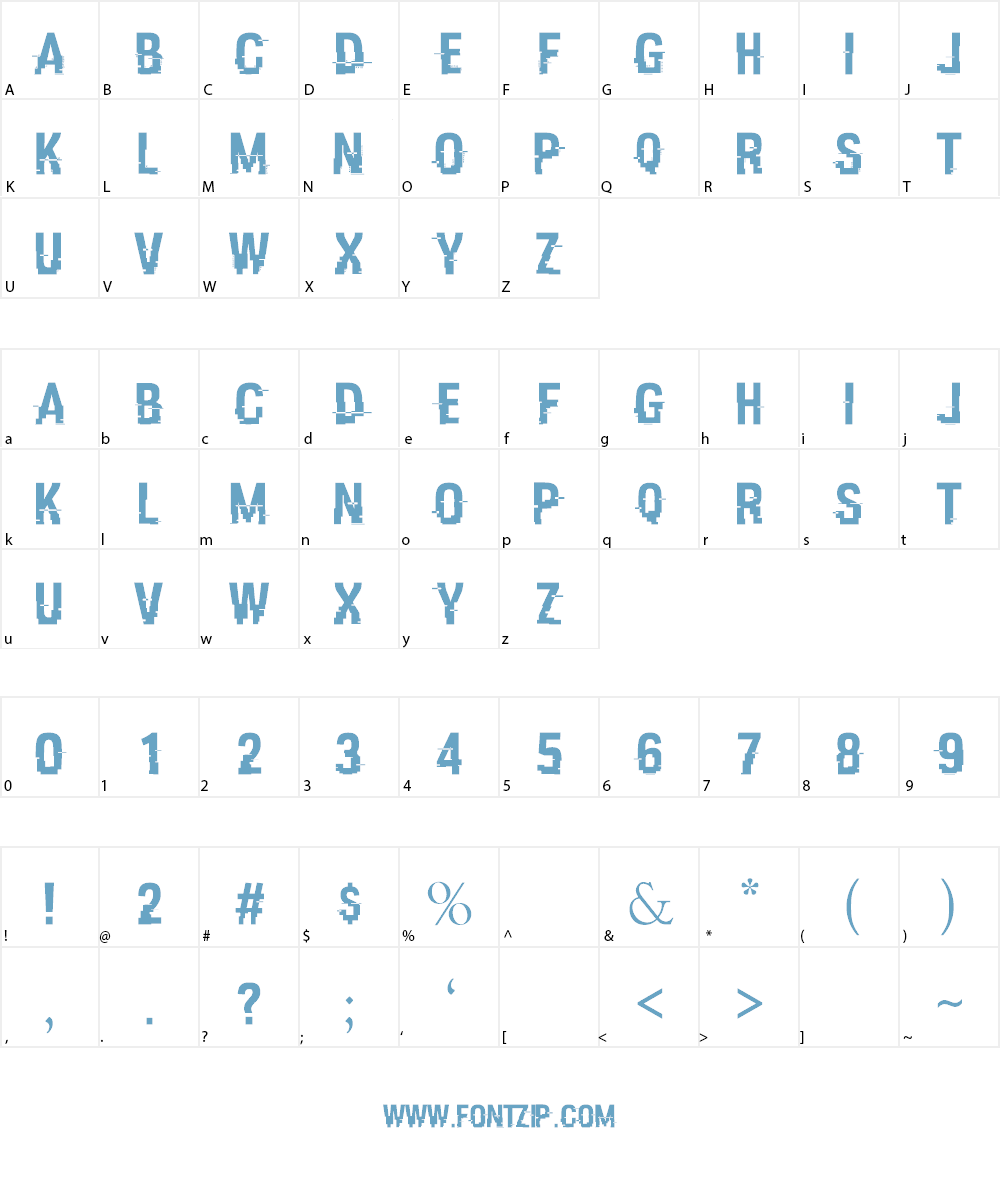
This font is a recreation of the Watch Dogs (Ubisoft game) logo but you can use it for any purpose. The licence is Creative Commons Attribution : commercial use is ok, you have to credit the font "Hacked" and its author "David Libeau". Thanks! Don't forget to donate if you like the font!